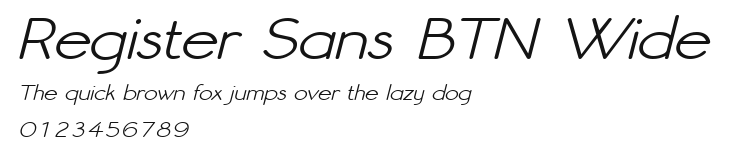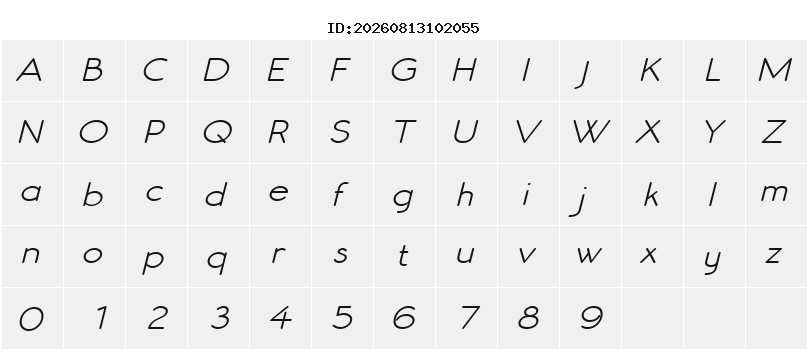
• Font Name: Register Sans BTN Wide
• Font Style: Oblique
• Font ID: Register Sans BTN Wide Oblique
• Full Font Name: Register Sans BTN Wide Oblique
• PostScript Name: RegisterSansBTNWideOblique
• Character Count: 264
About Register Sans BTN Wide.ttf
Register Sans BTN Wide.ttf is a modern, elegant sans-serif font designed for ultimate readability and visual harmony. Perfect for branding, headlines, web design, and print materials.